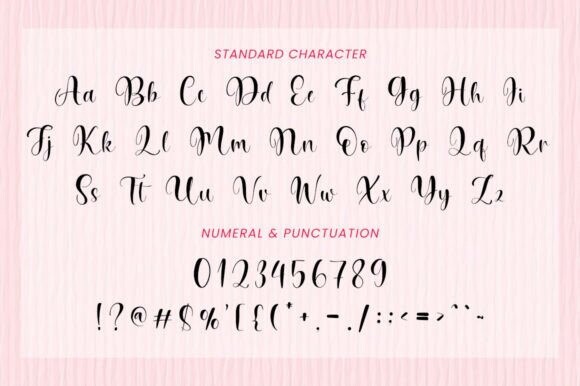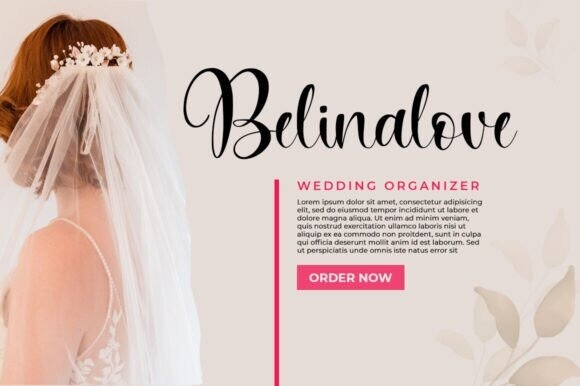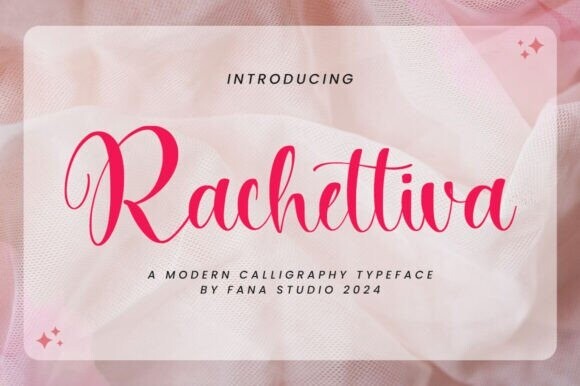
Rachettiva Font
Designer: fanastudio
Rachettiva Font, a stylish Font Style. This beautiful script font offers your personal touch to your latest art project with elegant, classy and modern look.
The Rachettiva Script offers gorgeous typographic perfect for many different projects such as logos & branding, invitations, stationery, wedding designs, social media posts, advertisements, product packaging, product designs, labels, photography, watermarks, special events or anything that needs handwriting taste.